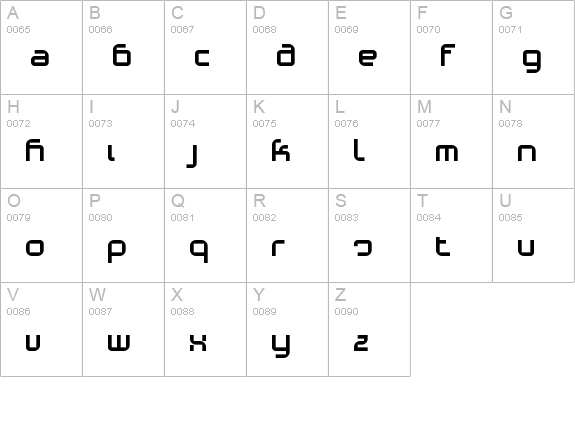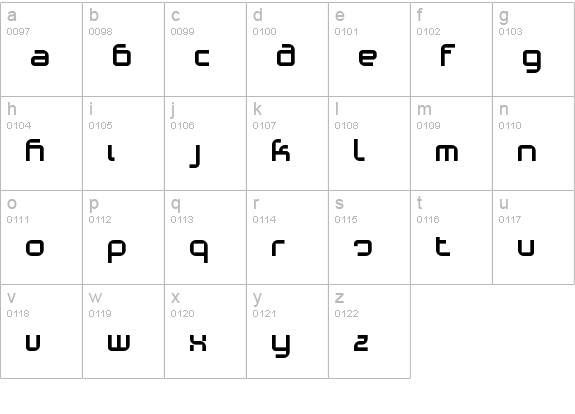
Phino Variation Font Details
Introducing Phino Variation, a stunning display font that combines elegance with a touch of playfulness. This font is perfect for projects that require a unique and eye-catching design, whether it's for branding, logos, posters, or social media graphics. Phino Variation stands out with its bold and distinctive letterforms, featuring stylish curves and intricate details. Its versatility allows it to adapt to various design styles, from modern and minimalist to vintage and retro. What sets Phino Variation apart is not only its captivating aesthetics, but also its accessibility. As a font designed to empower creativity, it is freely available to download at FontsMarket.com. This means that designers and enthusiasts alike can easily obtain and utilize this remarkable font without any cost or restrictions. With Phino Variation, your designs will effortlessly capture attention and make a lasting impact. Its timeless appeal and versatility make it a valuable addition to any designer's toolkit. So why wait? Download Phino Variation now and unlock a world of creative possibilities.